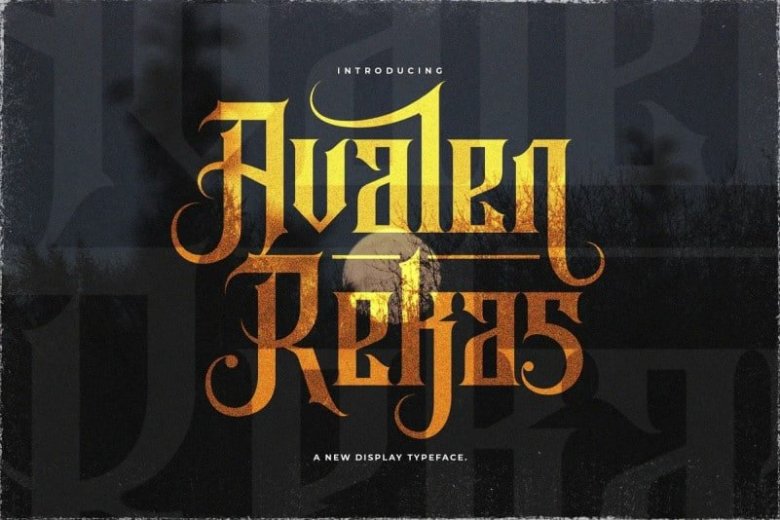
Avalen Rekas Font
Avalen Rekas Display Font is a typeface inspired by American ethnic motives, with a touch of gothic spirit. It’s designed and shared by StringLabs. This typeface is perfect for product logo, poster title, headline, packaging, badge, wedding card logo, clothing brand logo, Vintage design and much more.